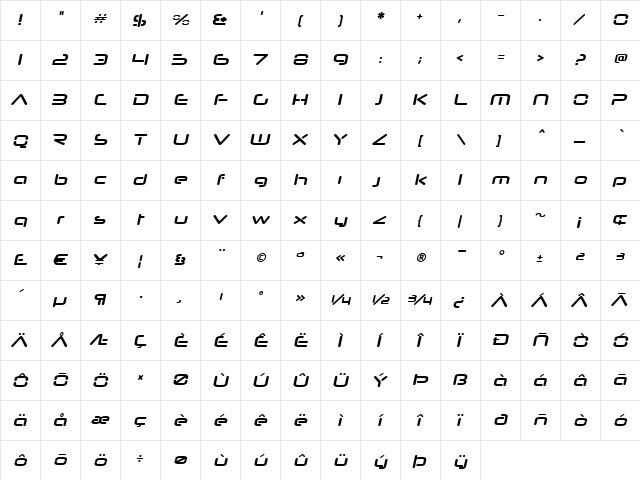
Neuropol Nova Xp Bold Italic Font Preview
Design Context for Neuropol Nova Xp Typeface
Neuropol Nova Xp takes a measured approach to typography — its balanced proportions and neutral character make it a reliable workhorse for both digital and print work. The dynamic lean of this cut emphasises speed and emphasis in any layout. The heavy weight commands attention and anchors typographic hierarchies.
Pro Tip: Try Neuropol Nova Xp for annotation and caption copy alongside an upright companion — the contrast in angle creates a dynamic but ordered typographic system.